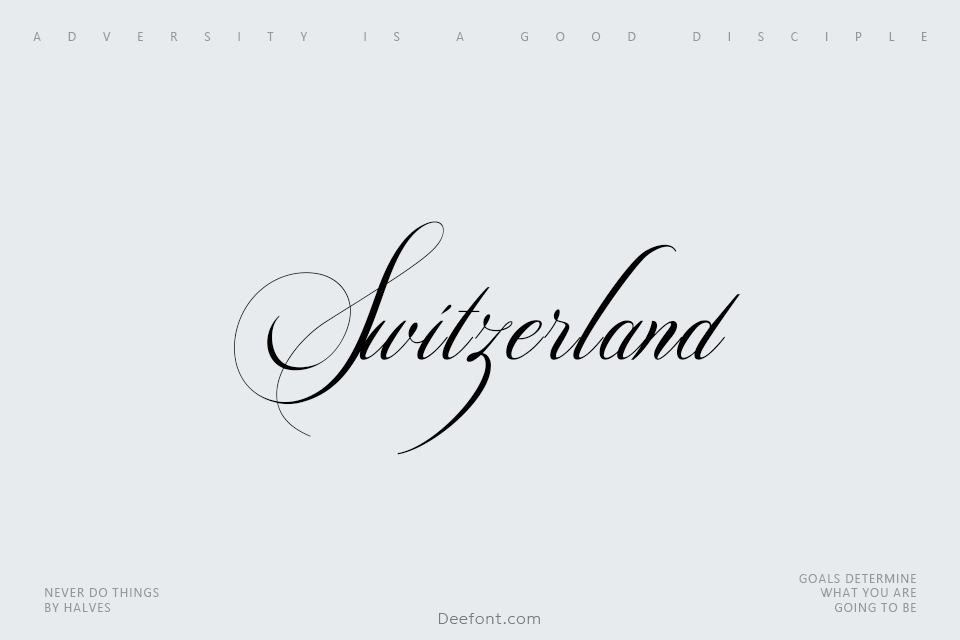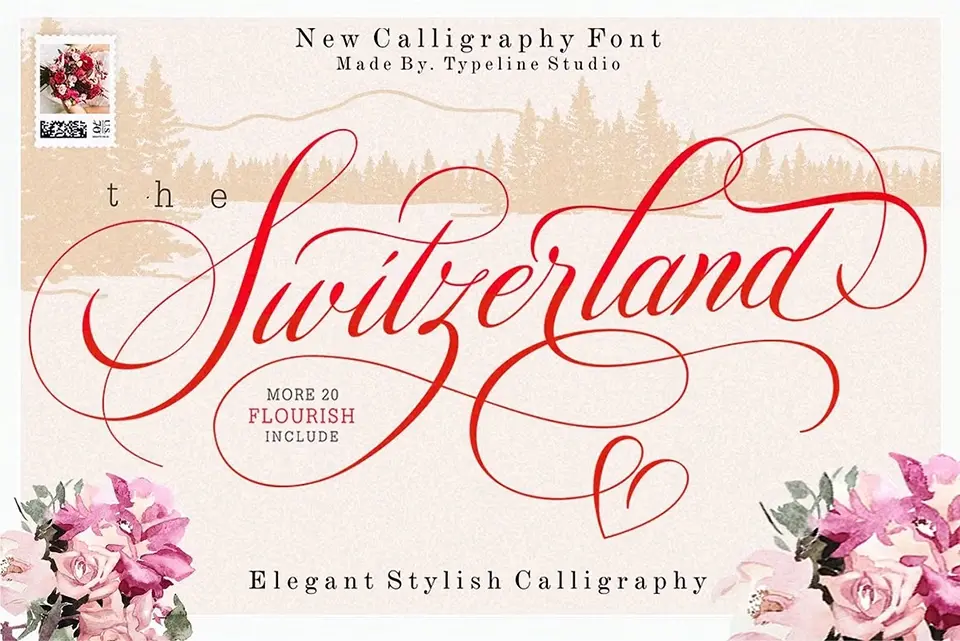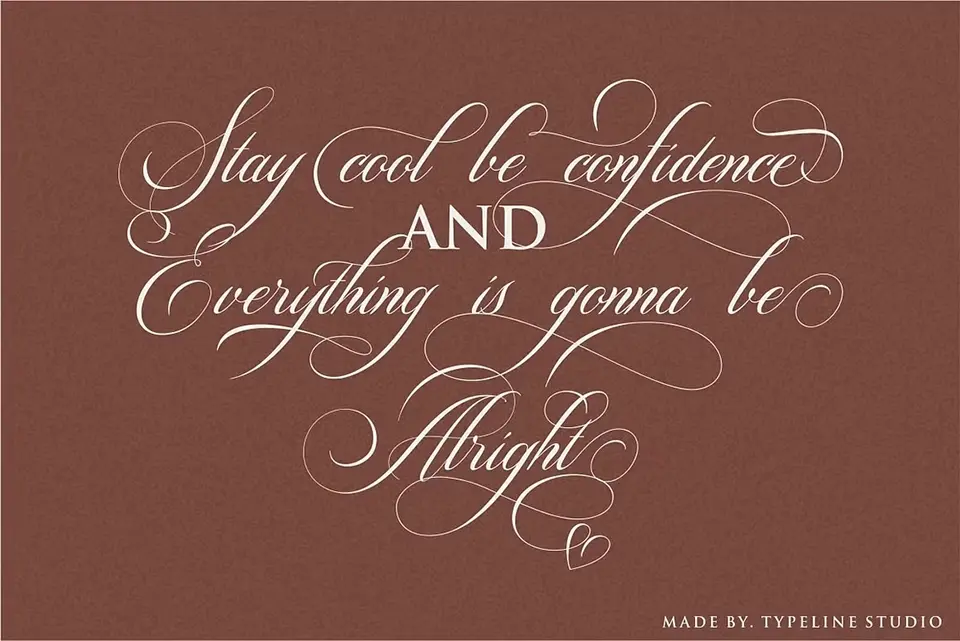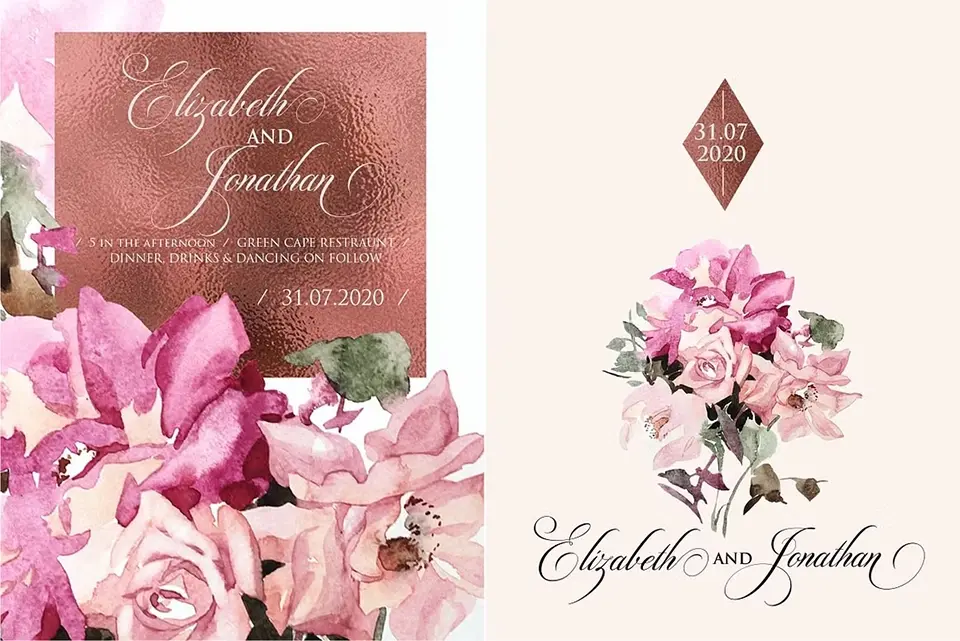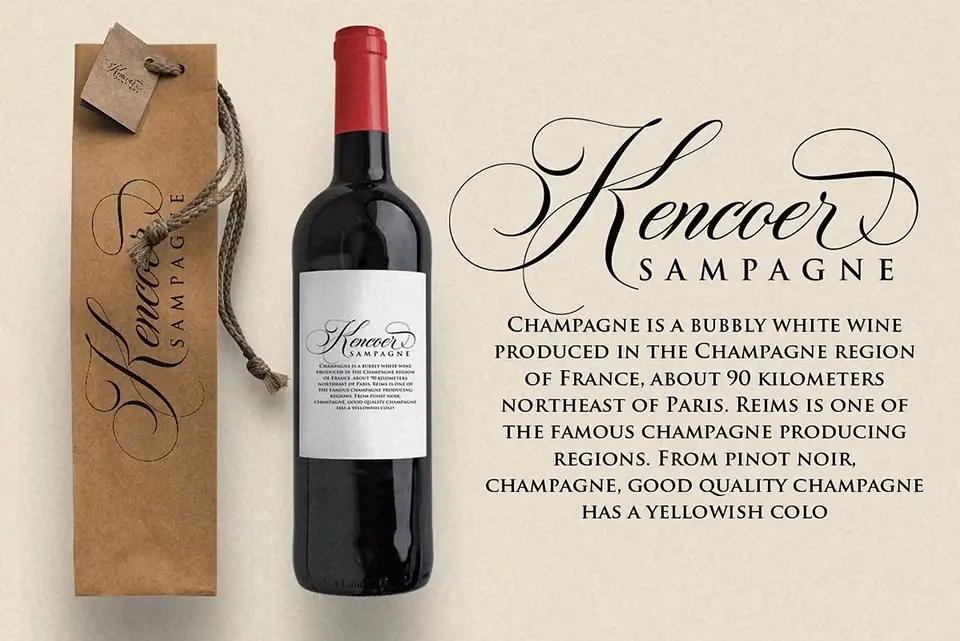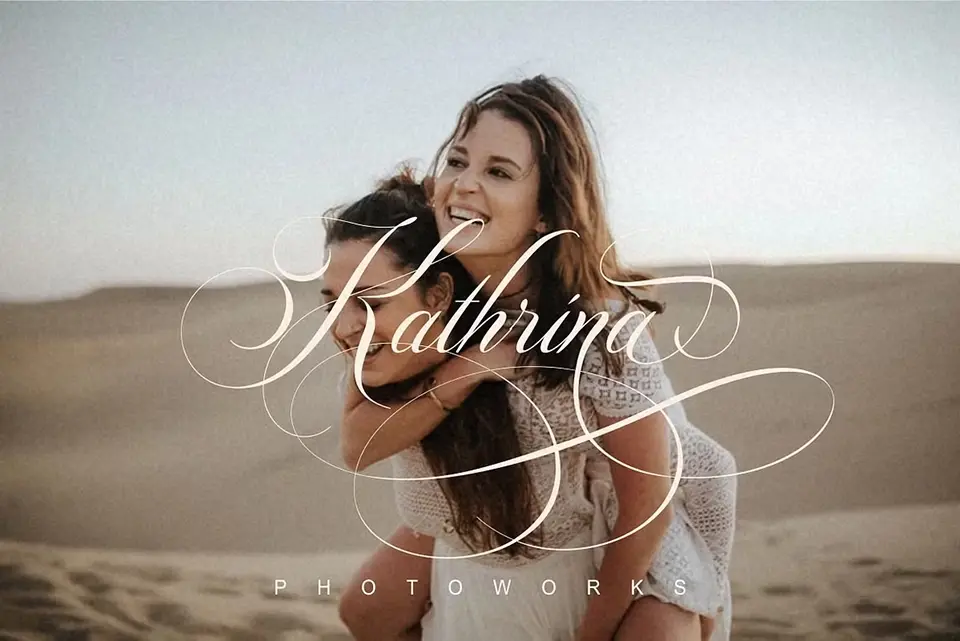
Switzerland Font
Switzerland is an elegant calligraphy script font designed with copperplate pen techniques and OpenType features. Perfect for wedding invitations, branding projects, and decorative headings, this stylish typeface includes multiple stylistic sets, ligatures, and swashes to add sophistication to your creative designs.